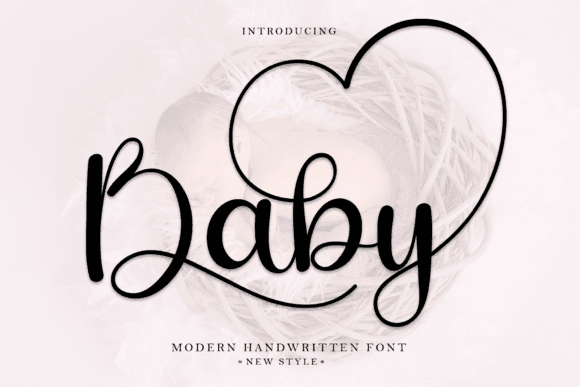
Baby Font for Cricut, Silhouette and Printable Designs
Baby is a tender and approachable font made especially for crafting machines and digital printables. Its rounded, friendly letterforms are perfect for infant-related designs like baby showers, milestone cards, and nursery decor.
- Soft and playful letter style
- Perfect match for baby-themed crafts
- Great readability in both small and large formats
- Works beautifully in printable and physical designs
Q: Is this good for baby milestone cards?
A: Absolutely. The soft, rounded style makes it a perfect choice for milestone cards and nursery keepsakes.
| Style | Rounded, baby-friendly script | Blocky modern craft font | Whimsical handwritten |
| Tone | Soft, sweet, nurturing | Modern and bold | Playful and whimsical |